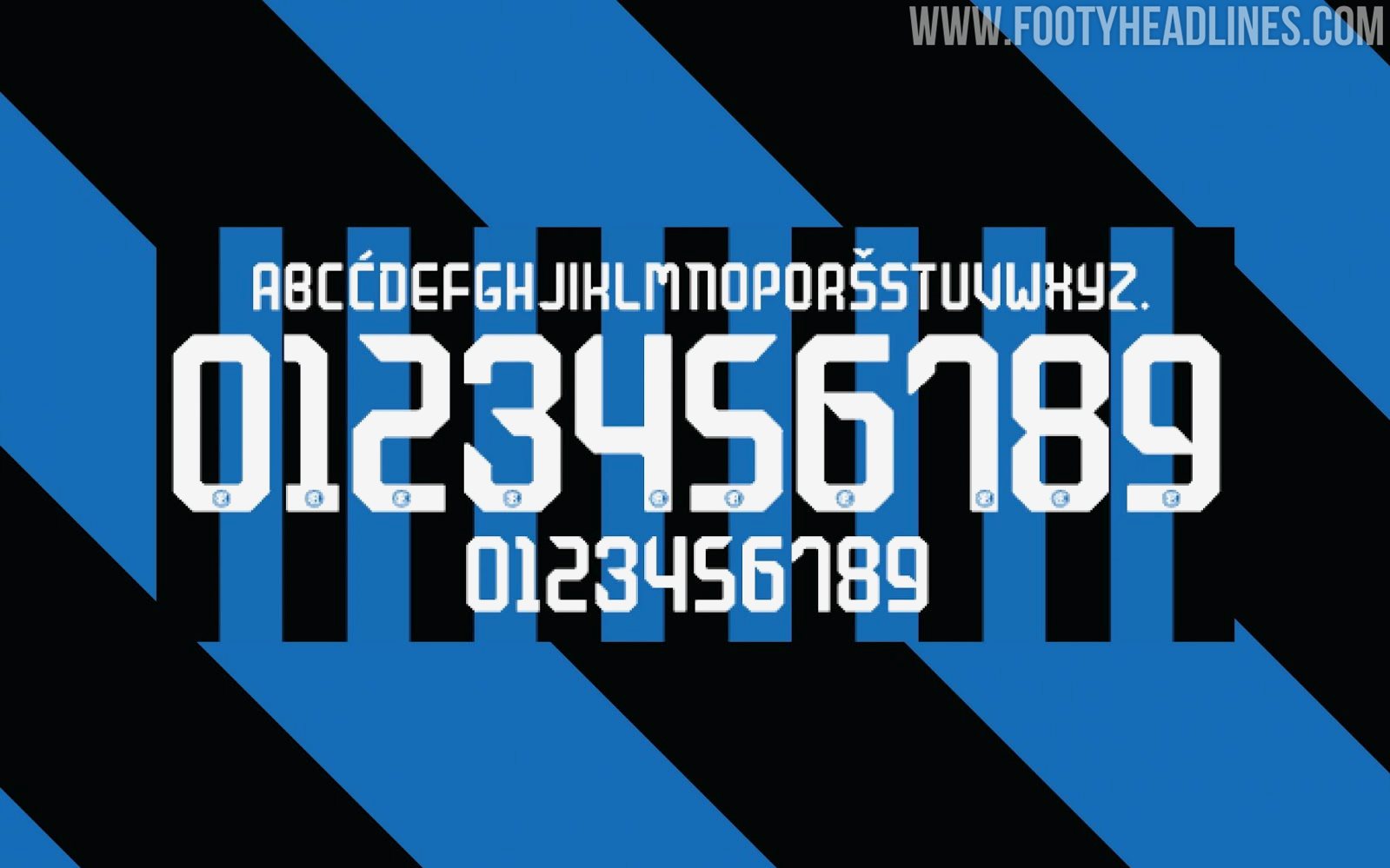
Unique Pirelli Ronaldo Nike Inter Milan 19-20 Print + Actual 19-20 Third Kit Font Released
The new Nike Inter Milan 2019-20 third jersey as released today. Inspired by Pirelli, its famous Formula 1 tyres and racing in general, it was an instant hit amongst sports fans worldwide. We take a look at the actual special kit font Nike designed for the jersey while also showcasing a special "R9 Racing Style" print that was made the waves on social media.
Nike Inter Milan 2019-20 Third Jersey Typeface
The Nike Inter Milan third jersey font is yellow with a monochromatic black version of the Inter logo on the bottom. The font style itself features clear edges and no roundings, inspired by the kit fonts of the 1990s.
Alongside the regular Nike 2019-20 Inter third kit font, there is also a special "R9 Racing Style" print option.
Special R9 Racing Style Football Kit Print
Inspired by the Pirelli logo and the black and white racing flag, the special "R9 Racing Style" print option boasts the lettering Ronaldo in Pirelli-style as well as his famous number 9 with a racing design.
The special R9 Racing Style print has very likely not been created by Nike but by retailer Subsidesports. It is set to be available to buy from September 10 2019.